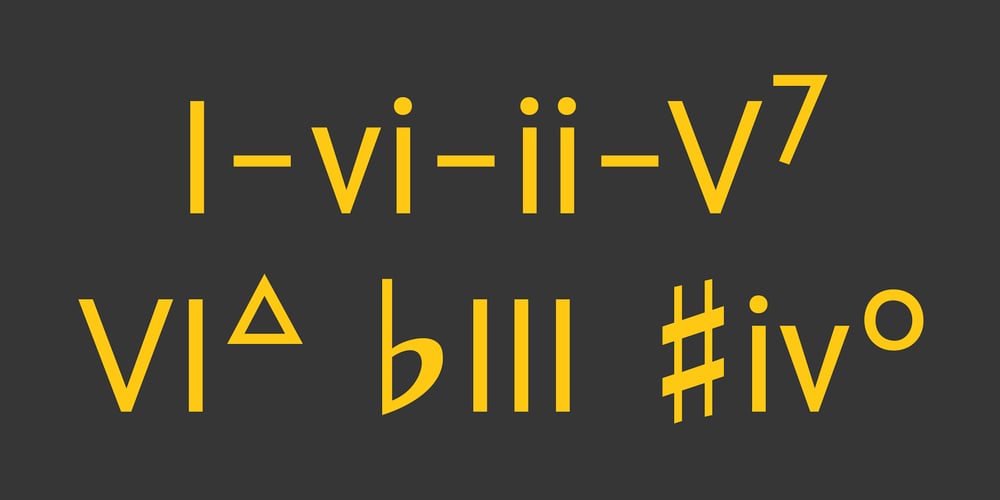
Chord Symbols Roman Numerals
Chord Symbols Roman Numerals font
Chord Symbols Roman Numerals Font Family was designed by Tijs Krammer and published by Tijs Krammer. Chord Symbols Roman Numerals contains 1 styles and family package options. Chord Symbols Roman Numerals is a font for musicians. With this font, you can quickly write chords in Roman Numerals plus extensions.Musicians tend to write chords with regular characters. They use # instead of a genuine sharp, b instead of a genuine flat, dim instead of a small circle, etc. With this font, your chords will be better looking, more easily readable and more efficiently notated. Chord Symbols Roman Numerals helps you to write the chords the way you like it. For example, whether you prefer ‘maj7’ or ‘m7’ or a small triangle for a major seventh, this font will suit you.